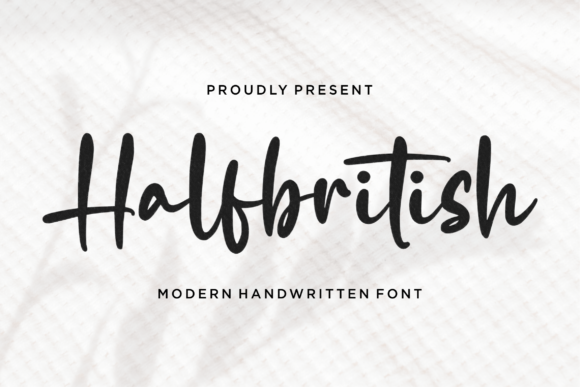
Welcome to the world of Halfbritish, a script font family that captures the essence of sophistication and allure, leaving an unforgettable impact on your creative projects. Step into a realm of visual artistry where elegance meets versatility, transforming your designs into masterpieces.
Halfbritish is a symphony of flowing strokes and enchanting curves, a fusion of classic calligraphy and modern flair. Its delicate lines dance across the page, evoking a sense of timeless beauty, while its playful spirit adds a touch of whimsy to your creations.
With Halfbritish, you hold the power to transform ordinary words into captivating expressions of art. Its refined aesthetic lends an air of sophistication to product packaging, effortlessly elevating your brand's image. Whether you're designing magazine covers, social media posts, or wedding invitations, Halfbritish seamlessly blends with your vision, adding a touch of magic to every project.
Unleash your creativity and explore the boundless possibilities of Halfbritish. Its versatility knows no bounds, adapting effortlessly to a myriad of design styles. From classic vintage to trendy minimalist, Halfbritish seamlessly integrates into your aesthetic, enhancing your designs with a timeless charm.
Step into the world of Halfbritish, where typography becomes an art form, and your designs reach new heights of elegance and grace. Discover the limitless potential of this captivating font family and embark on a creative journey that will leave a lasting impression.
**Qwrtypefoundry presents Halfbritish, the script font designed to ignite your imagination.**